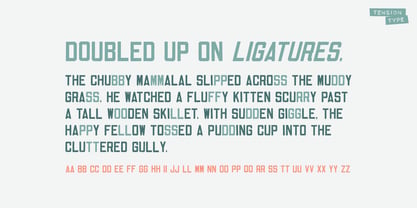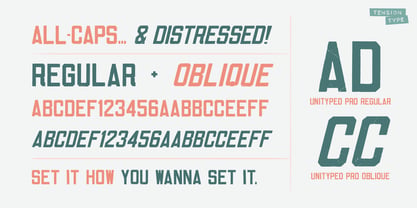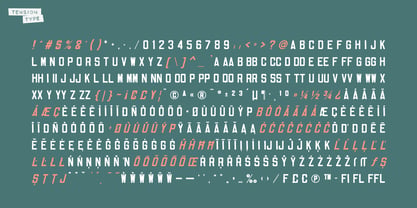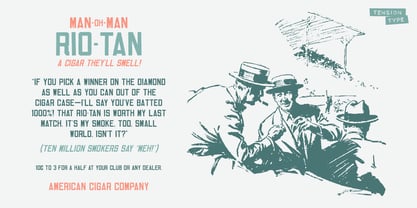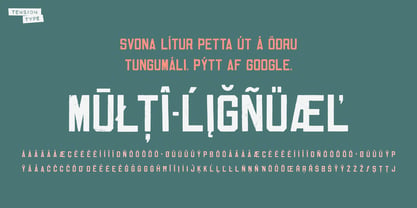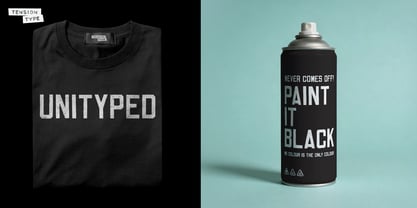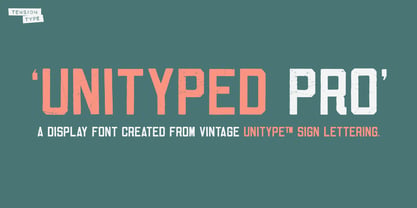
Unityped Pro
Die Schriftfamilie Unityped Pro wurde von Michael Tension entworfen und von Tension Type veröffentlicht. Unityped Pro enthält 2 Stile und Familienpaketoptionen. Mehr über diese Familie
I found a bunch of vintage metal sign letters at an antique shop. I really liked the look of them, but a few of the vowels were missing. I bought them and did some research online and found images of the missing characters. With a bit of time I was able to complete the pro latin for this font. Best used for display of course. The letters were originally used for outdoor road signs.